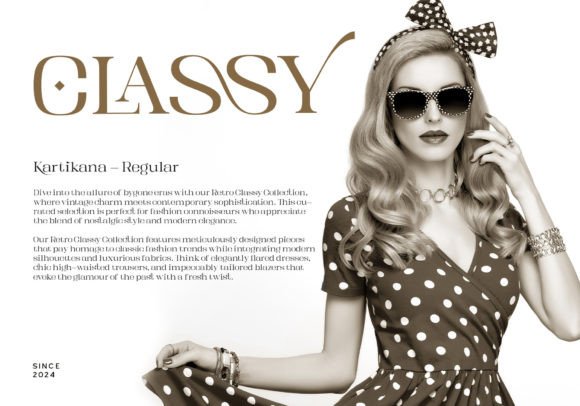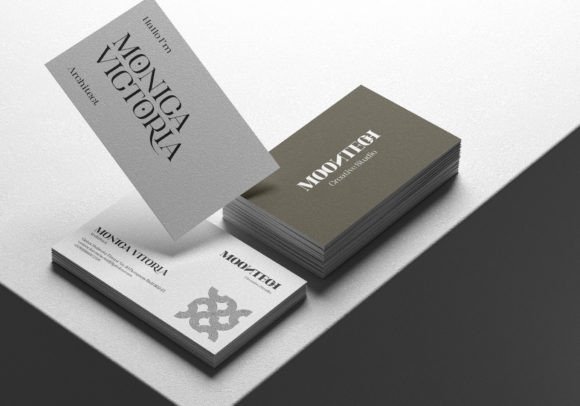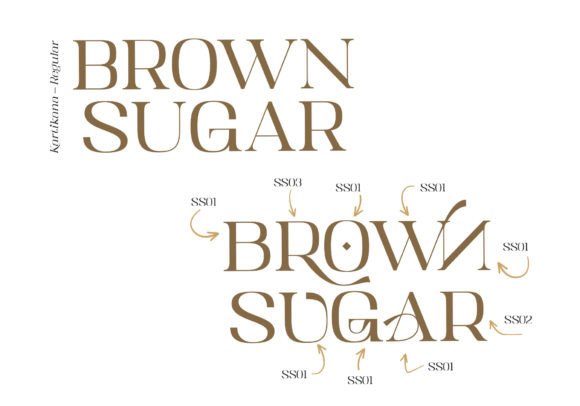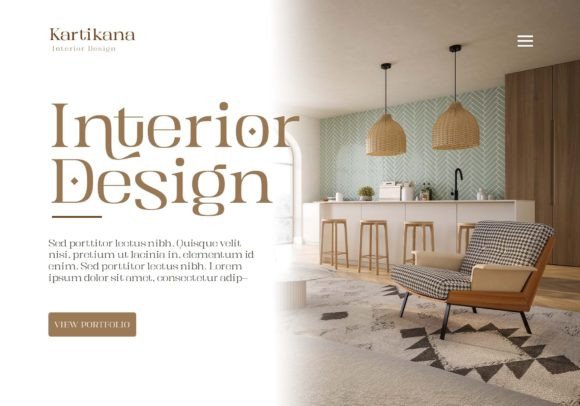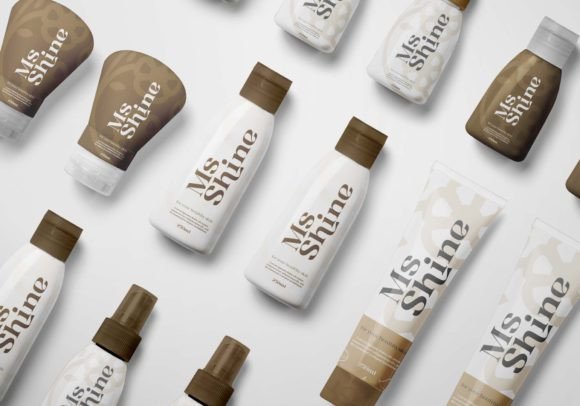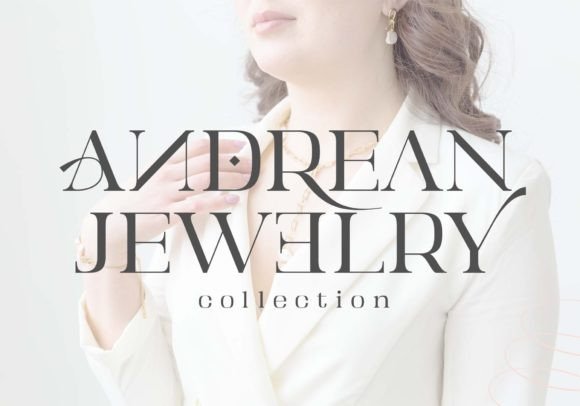
Introduction to Kartikana Font
As a designer, you’ve likely found yourself stuck at the desk, staring at a blank screen, and desperately seeking the perfect font to bring your creative vision to life. That’s exactly where I was when I discovered the Kartikana Font – a game-changing serif font that effortlessly combines classic elegance with a modern twist.
With its sleek design and versatility, Kartikana Font is an absolute must-have in any designer’s toolkit. Whether you’re working on a book cover, magazine ad, or product packaging, this font is sure to elevate your design to the next level. Its OpenType feature and multilingual support make it an invaluable resource for designers looking to create high-quality designs with a transparent background that truly stand out.
Not only is Kartikana Font a valuable addition to any design project, but it’s also available for free download, making it an accessible design resource for creatives of all levels. In this article, we’ll delve into the world of Kartikana Font and explore its features, uses, and benefits for designers looking to take their creative projects to new heights.
Key Features of Kartikana Font
- Unique and Creative Design: Kartikana Font offers a distinctive and creative design that can add a touch of elegance to any design resource or creative project.
- Perfect for Display and Body Text: Kartikana Font is designed to be used for both display and body text, making it a versatile design resource for any creative project.
Honest Review: Kartikana Font
As a designer, I’m always on the lookout for high-quality design resources to elevate my creative projects. Recently, I stumbled upon the Kartikana Font, and I must say, it’s been a game-changer for my design workflow.
What works well: ✨ The Kartikana Font boasts a unique, elegant design that adds a touch of sophistication to any project. Its high quality is evident, even when used on a transparent background, which is a feature that I appreciate.
- Extensive character set, including a wide range of languages
- High-resolution design, perfect for print or digital applications
However, I do have a few limitations to mention: ⚠️ The font can be a bit challenging to read in small sizes, and some users may find the design too ornate for their taste.
Overall, I’m thoroughly impressed with the Kartikana Font. It’s a valuable design resource that has already improved the look and feel of my creative projects. I highly recommend it to fellow designers looking for a high-quality, versatile font.